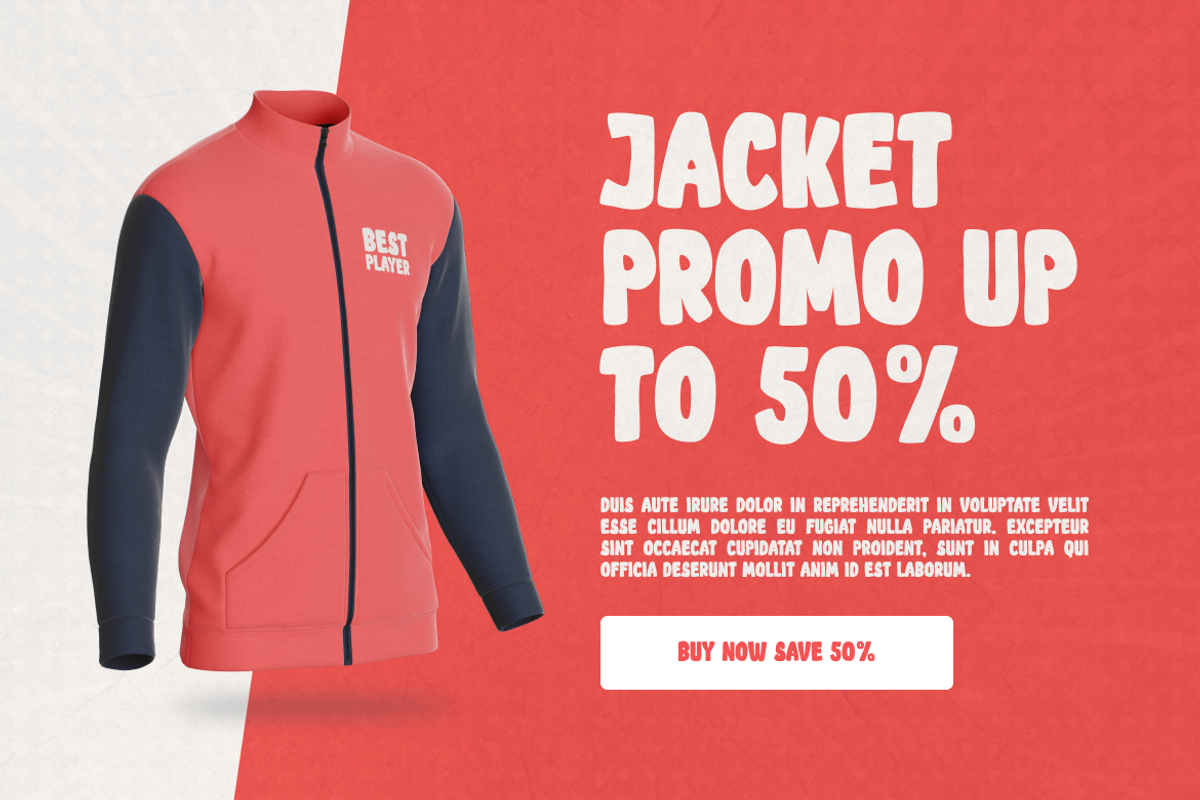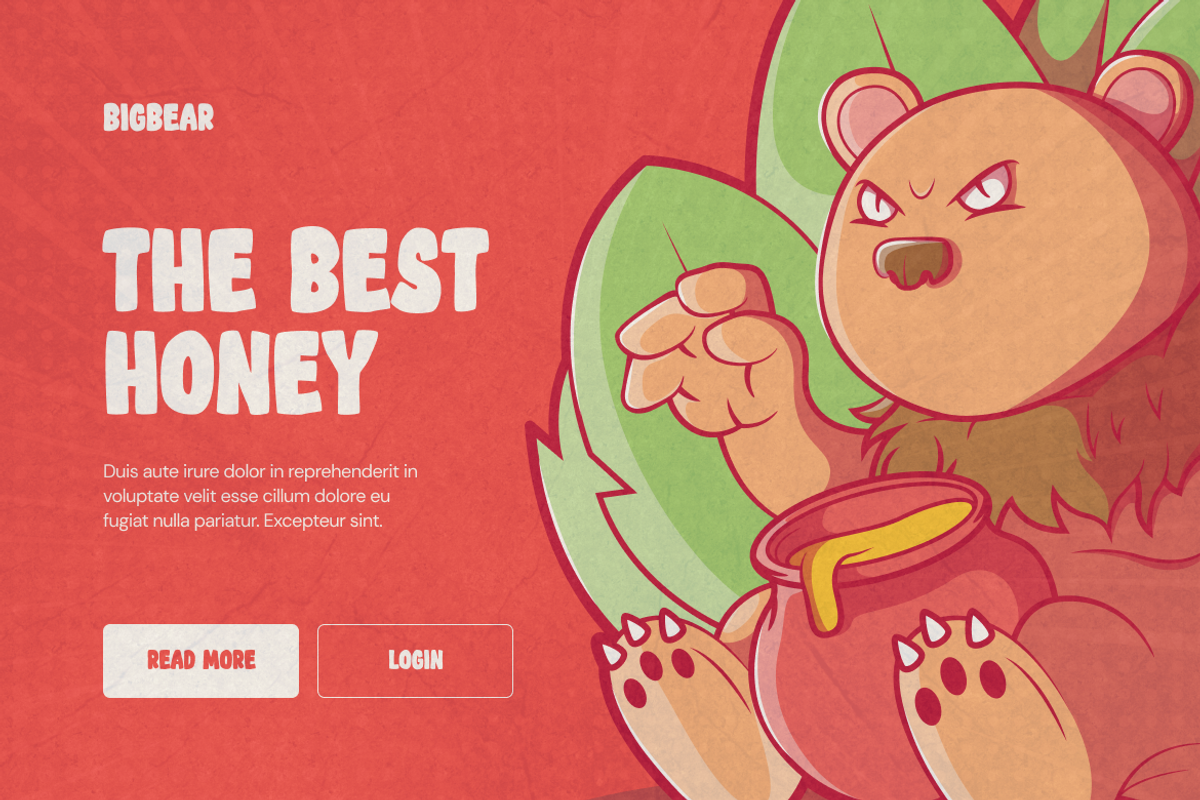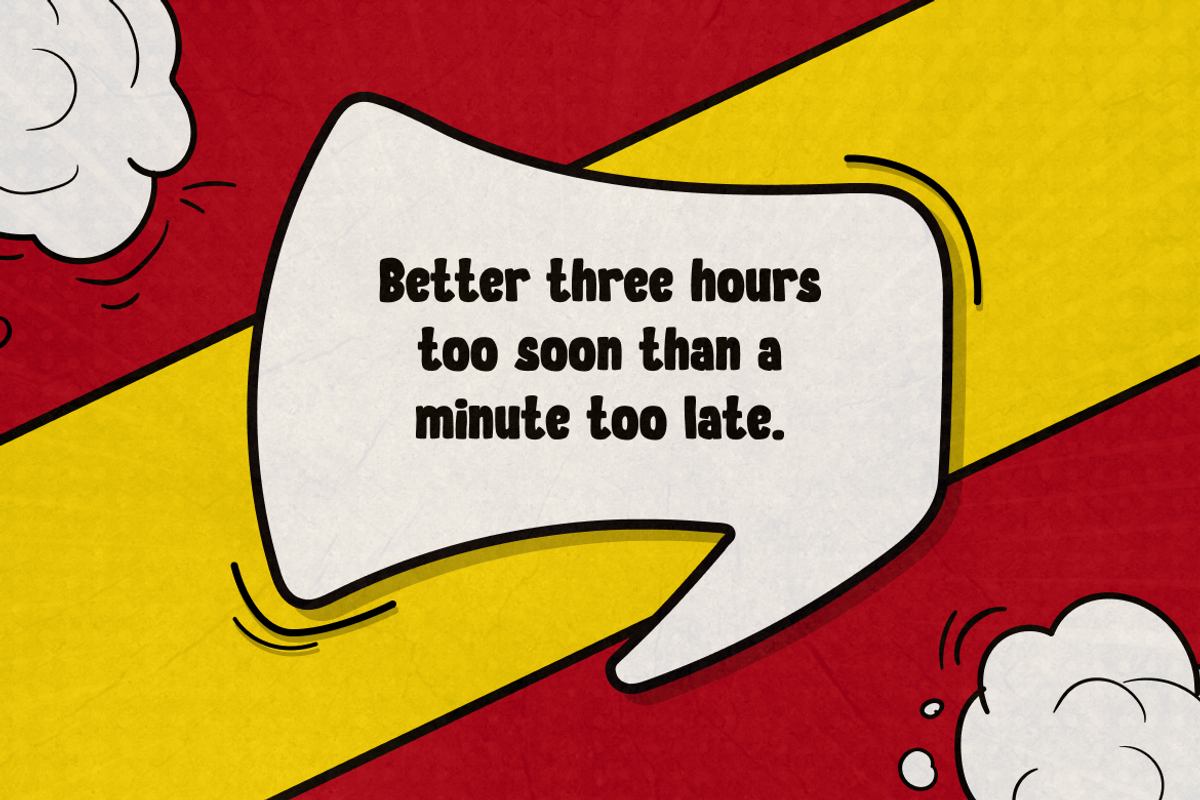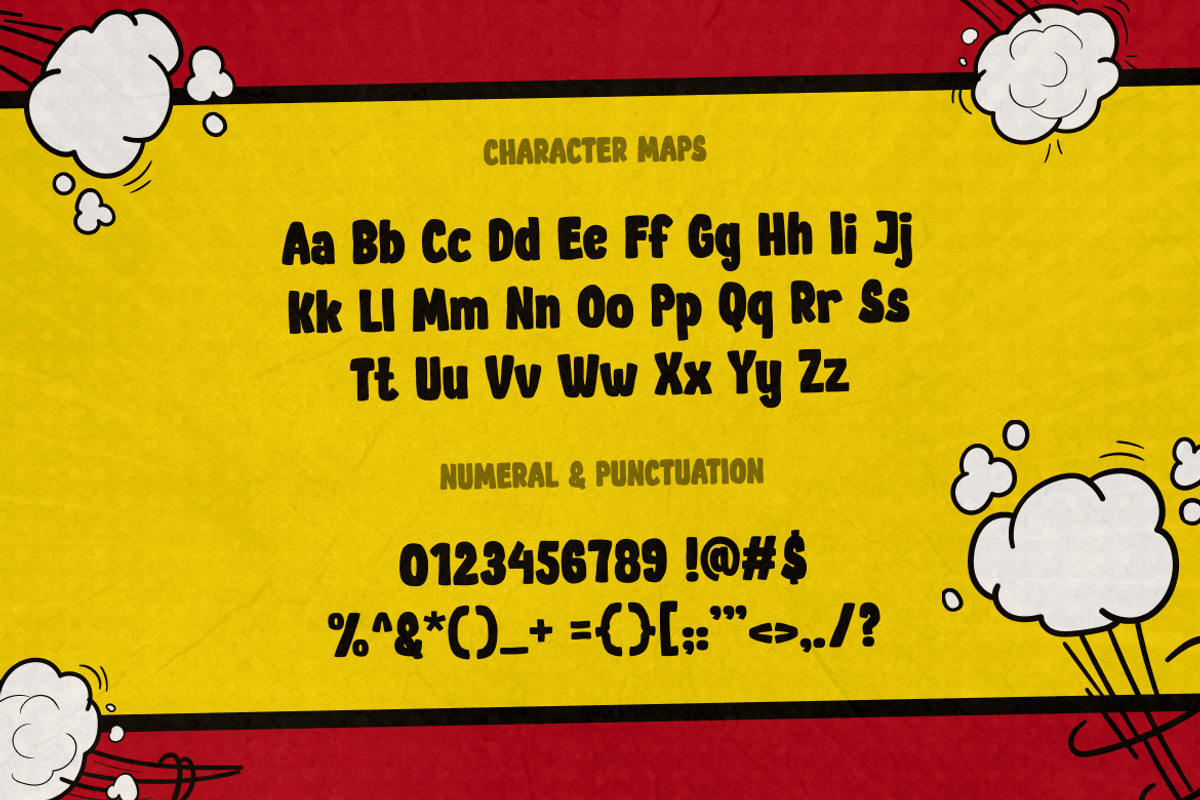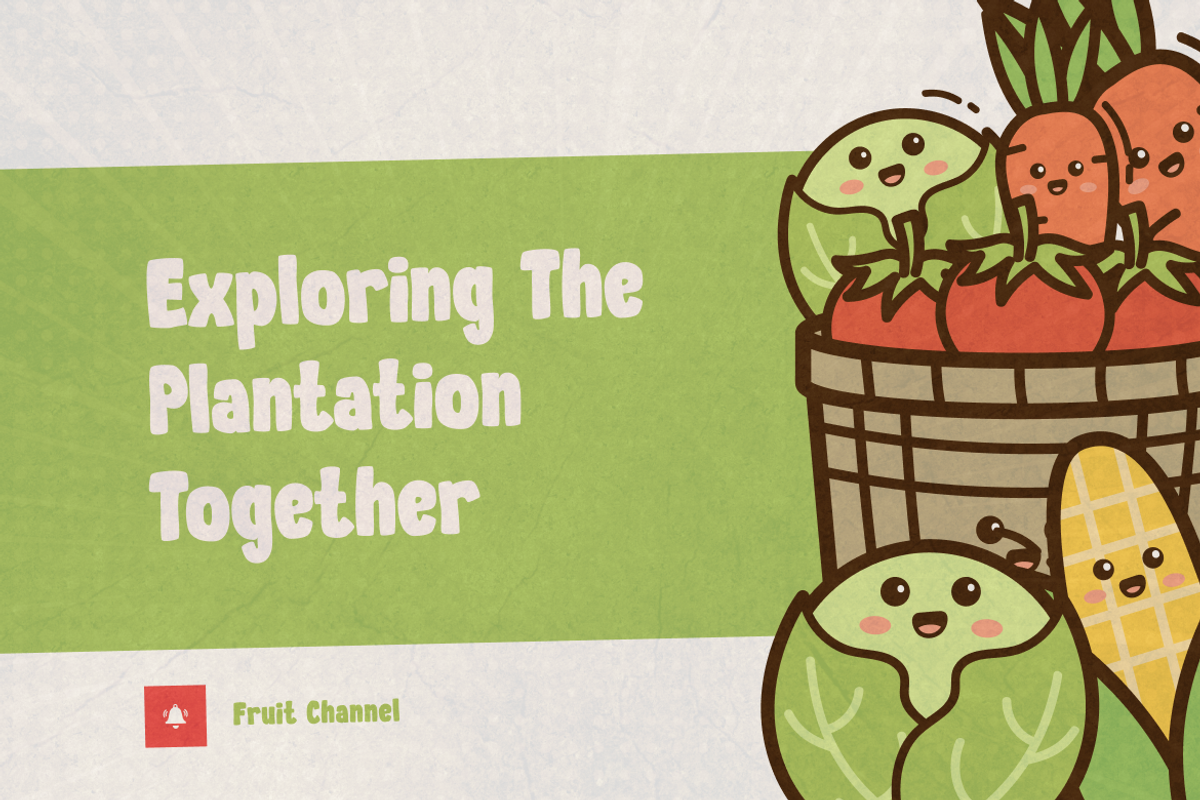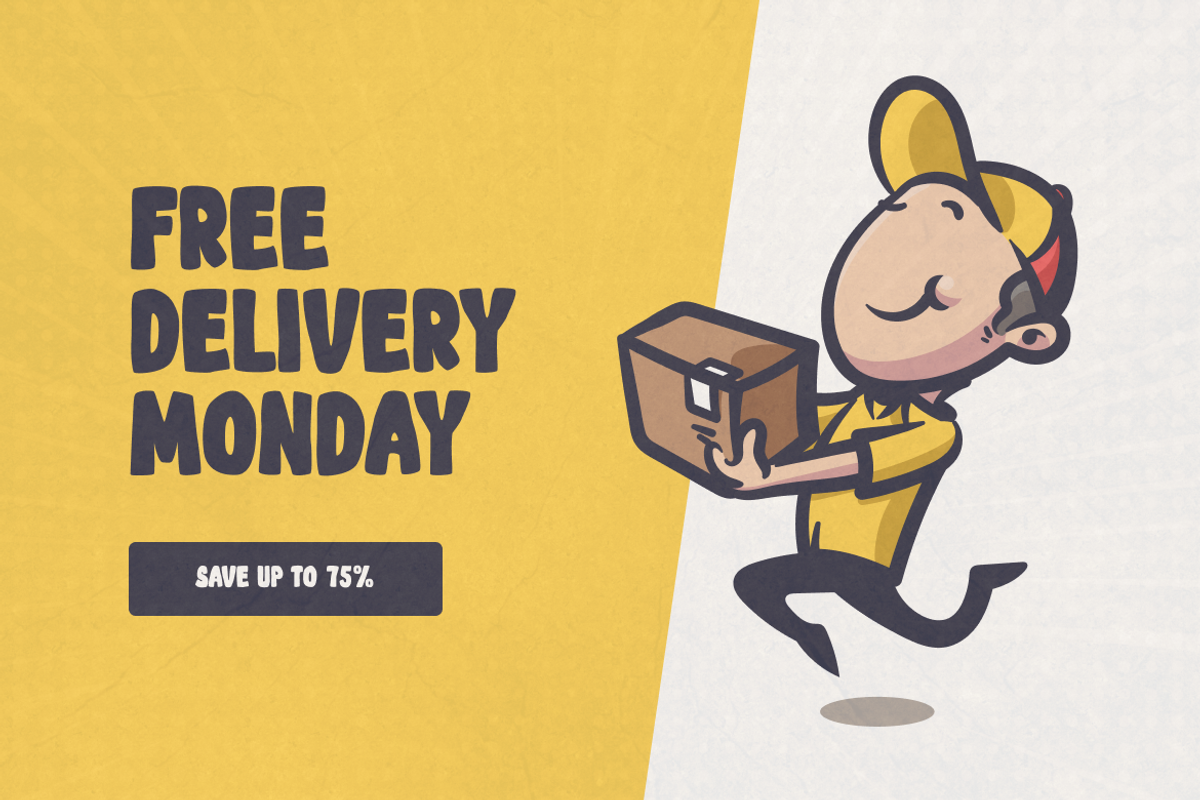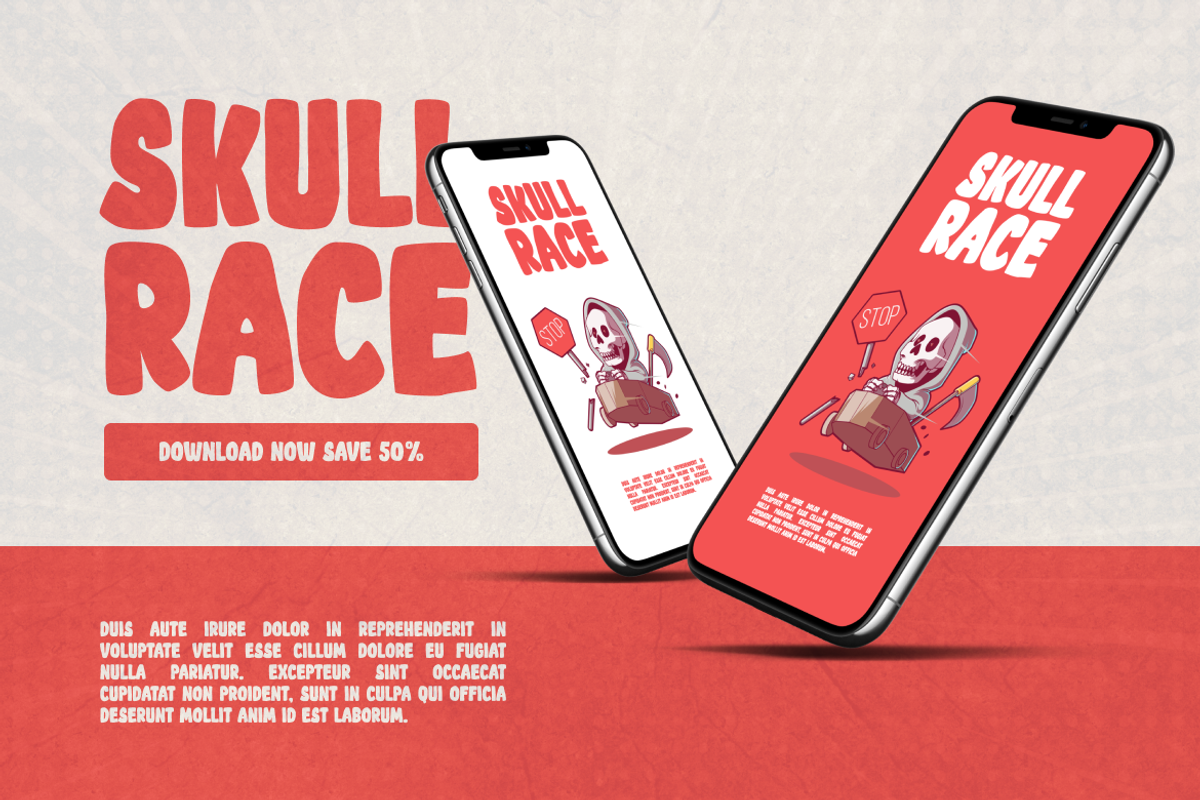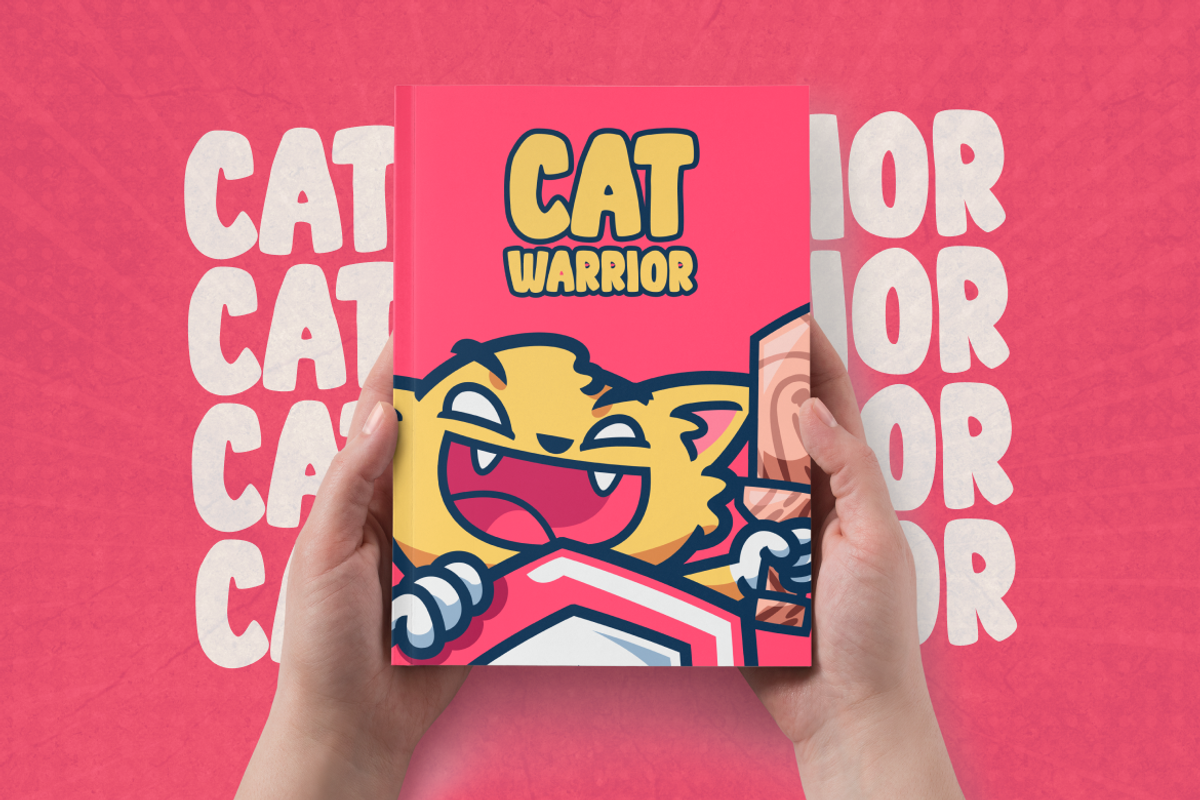
Comic Art - Cartoon Font
It speaks for itself. Comic Art brings the classic cartoon feel to the word written.
Suit perfectly for Online Games, poster, movie title, fast food menu, magazine, youtube covers, youtube thumbnails, social media page covers and so on…